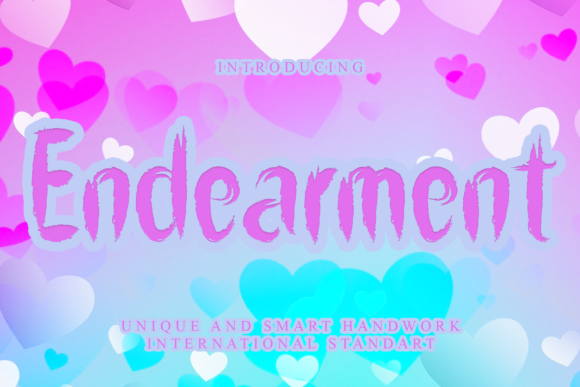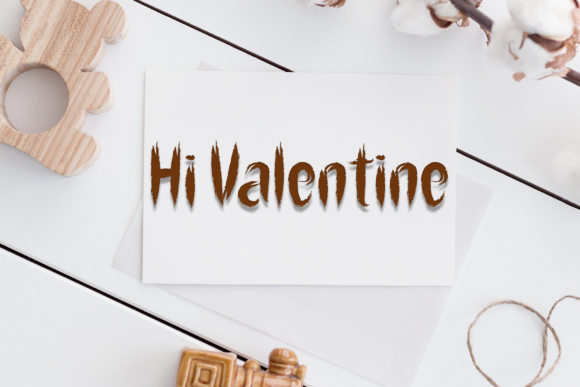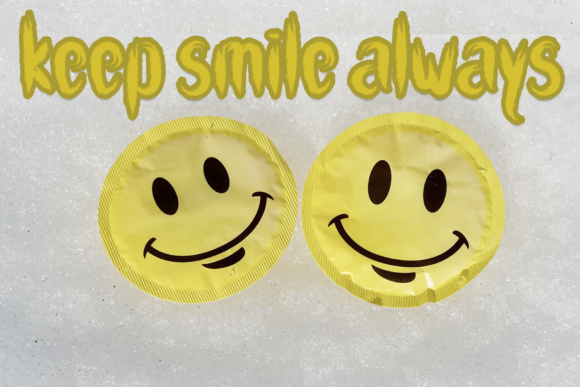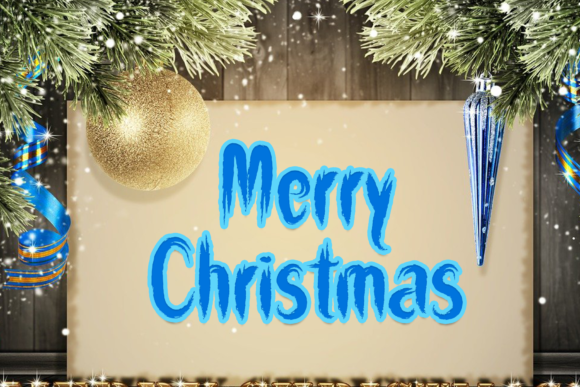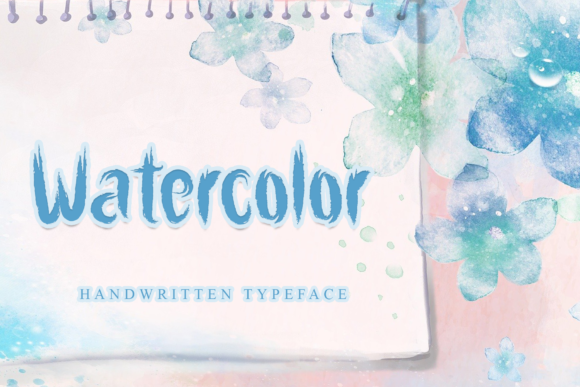
Endearment Font
About Endearment Font
Endearment is a playful and energetic brush style handwritten font that can add a dynamic and vibrant touch to your creative ideas. With its brush strokes and organic feel, this font exudes a sense of spontaneity and joy.
The unique and charming design of Endearment makes it a great choice for a variety of projects. Whether you’re working on branding, logos, packaging, posters, social media graphics, or any other design that needs a fun and expressive touch, this font can bring your ideas to life.
The brush style of Endearment adds a sense of movement and liveliness to your designs. The uneven strokes and varying line weights give the font a handcrafted and artistic appearance. It’s perfect for capturing attention and creating a memorable visual impact.
Endearment’s playful nature makes it a versatile font for different themes and styles. It can be used in designs related to children, celebrations, events, art, and more. Its whimsical and free-spirited vibe can convey a sense of joy, creativity, and positivity.
When using Endearment, consider experimenting with its various glyphs and swashes to add even more character to your designs. The font’s PUA encoding allows easy access to these additional decorative elements, giving you more creative freedom to customize your projects.
In addition to its visual appeal, Endearment is also legible and readable, making it suitable for both display and small text sizes. Its brush strokes maintain a good balance between clarity and artistic flair, ensuring that your message is conveyed effectively.
Whether you’re working on personal or commercial projects, Endearment can add a touch of playfulness and charm. Let this font infuse your designs with energy, creativity, and a sense of fun. Embrace its brush style and enjoy the unique personality it brings to your creative ideas.